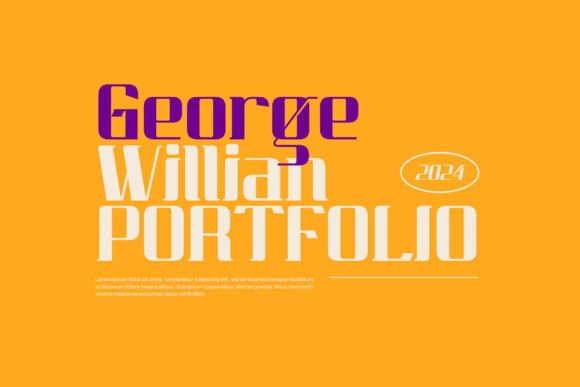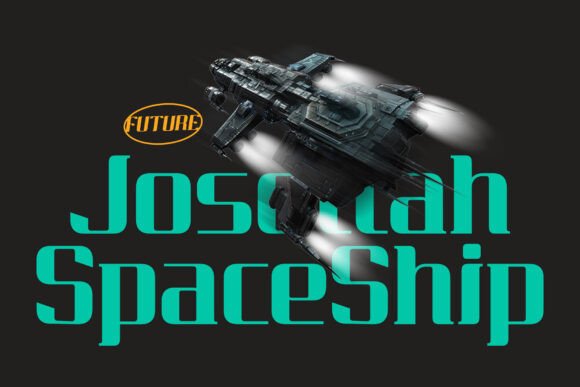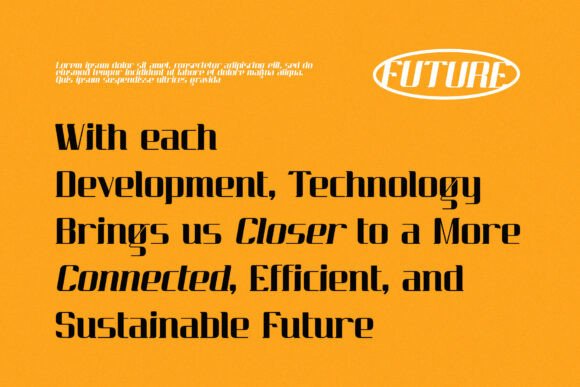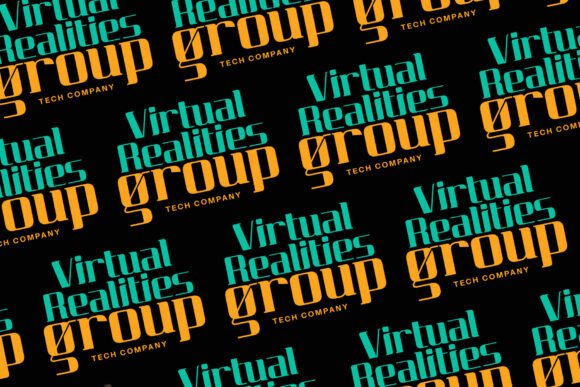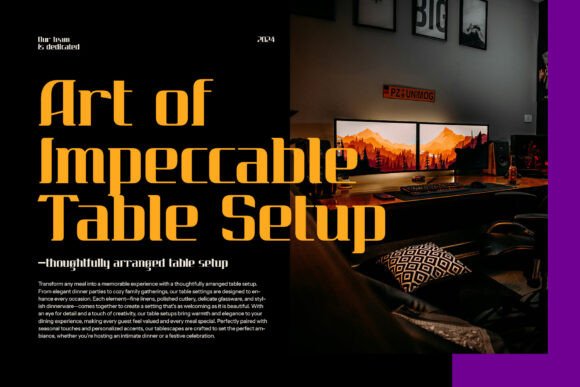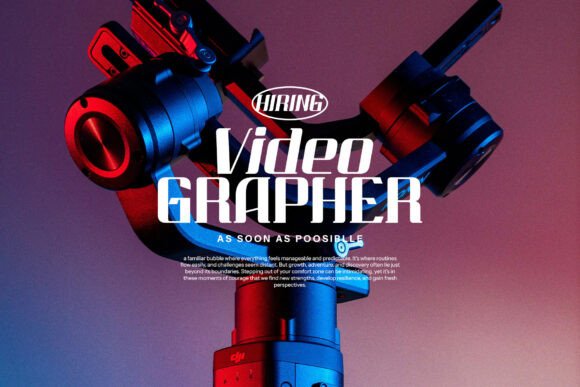
Aganis Font: The Cutting-Edge Serif Typeface for Modern Designs
In the world of typography, fonts play a crucial role in conveying the tone and personality of a brand or design. With the ever-evolving landscape of digital media, it’s essential to have a font that not only stands out but also communicates sophistication and innovation. This is where Aganis Display Font comes in – a modern serif typeface designed to bring a sense of sleek elegance to any project.
What Makes Aganis Unique?
Aganis Display Font boasts precise, rectangular shapes and bold contrasts between thick and thin lines, giving it a distinctive and futuristic look. Its structured, geometric form makes it perfect for applications that demand both clarity and style. Whether you’re working on tech branding, digital media, or high-end advertisements, Aganis is the ideal choice to make your project stand out.
Timeless Elegance Meets Modern Sophistication
Aganis combines the timeless elegance of serif fonts with the sharp, clean lines typically associated with contemporary design. This fusion results in a font that exudes a sense of technological and innovative vibe, making it perfect for industries and projects related to technology, science, and digital media.
One of the key benefits of Aganis Display Font is its versatility. It works well in both large-scale headlines and smaller text bodies, maintaining legibility and visual appeal across various media. Whether you’re designing a website, logo, film, or product packaging, Aganis ensures that your message is conveyed with clarity and style.
Perfect for Modern Designers and Crafters
Aganis Display Font is a great choice for designers and crafters looking to add a touch of modern sophistication to their projects. Its balanced proportions and angular detailing make it perfect for creating visually stunning designs that demand attention. With Aganis, you can:
- Create stunning tech branding and digital media designs that exude innovation and sophistication.
- Add a touch of elegance to high-end advertisements and product packaging.
- Design websites and logos that stand out in a crowded digital landscape.
- Enhance the visual appeal of films and video content with a modern and sleek font.
Why Choose Aganis Display Font?
With so many fonts available, why choose Aganis Display Font? Here are just a few reasons:
- Unique and distinctive design: Aganis boasts a one-of-a-kind design that sets it apart from other serif fonts.
- Highly versatile: Aganis works well in various design applications, from large-scale headlines to smaller text bodies.
- Perfect for modern designs: Aganis is designed with modern designs in mind, making it perfect for tech branding, digital media, and high-end advertisements.
- Easy to read and legible: Despite its sleek and modern design, Aganis remains highly legible, even in smaller text sizes.
In conclusion, Aganis Display Font is a cutting-edge, modern serif typeface that’s perfect for designers and crafters looking to add a touch of sophistication and innovation to their projects. With its precise, rectangular shapes, bold contrasts, and balanced proportions, Aganis is ideal for applications that demand both clarity and style. Whether you’re working on tech branding, digital media, or high-end advertisements, Aganis Display Font is the perfect choice to make your project stand out.